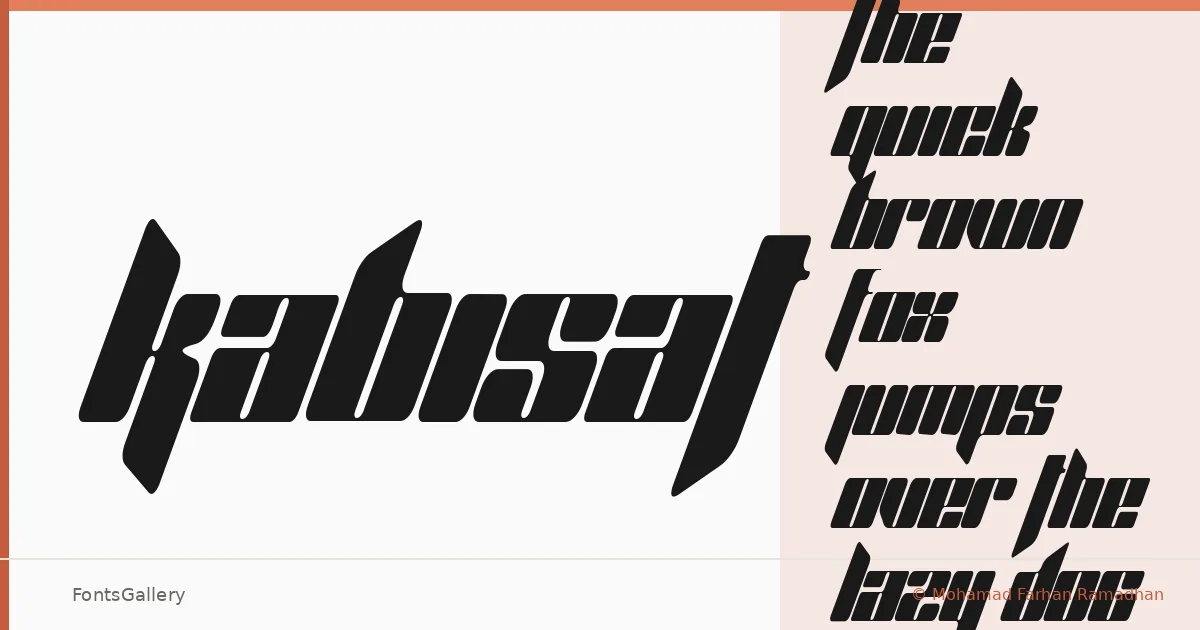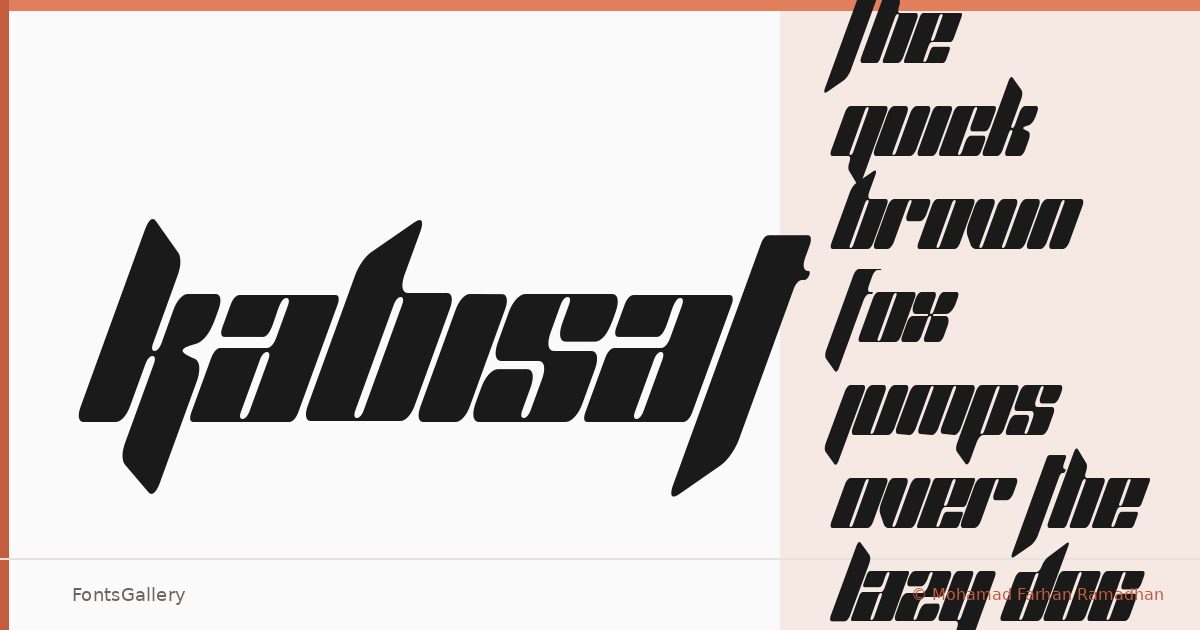
About Kabisat Demo Font
There is something deliberately unsettled about this display face — a tall italic stance that leans into tension rather than elegance. It was designed by Mohamad Farhan Ramadhan, built in FontLab, and carries a 2024 copyright under the Mofr name. The single cut available is Kabisat Italic Tall, a Regular Italic Tall delivered as a TTF file, and it commits fully to its angle without hedging toward legibility at small sizes.
The category is Display, and the mood leans hard into futuristic grunge — the kind of letterforms that feel like they belong on a surface that has been worn down or charged up. The bold, modern disposition of the italic gives headlines and logotypes an aggressive forward momentum. Because there is only one style in this family, every decision about weight and slant is already made for you; the face works precisely because it refuses to compromise.
This is a face for large settings: poster headlines, brand marks, logo treatments, and T-shirt graphics where the letterforms can breathe and dominate. It pairs well alongside neutral or structured faces such as Helvetica and Alexandria, or it can sit with more characterful companions like Aresink, Bizantheum, and Audex when a project calls for competing energies rather than contrast through calm.